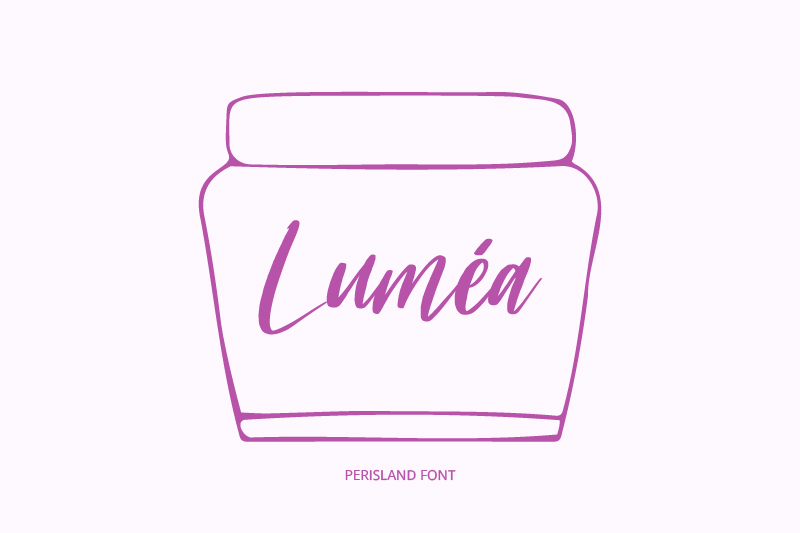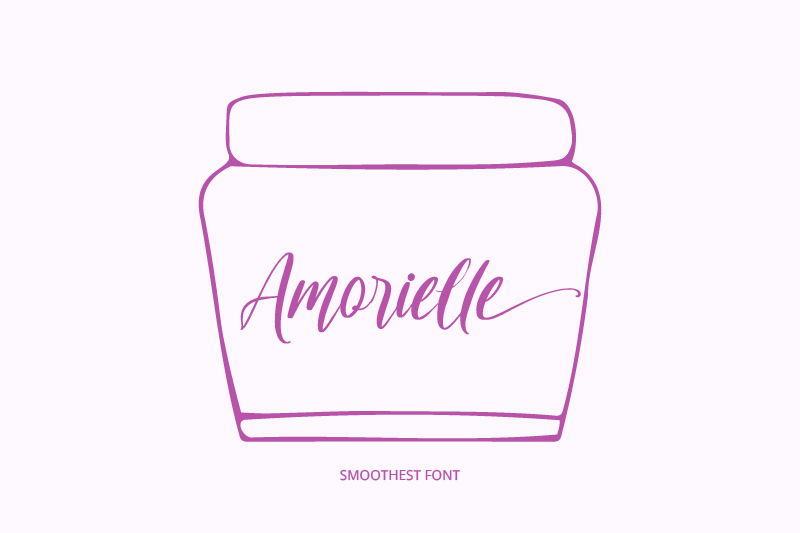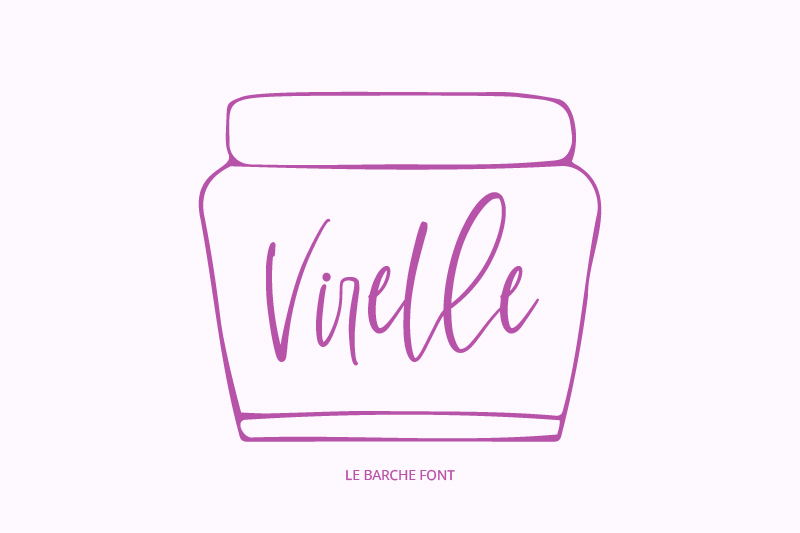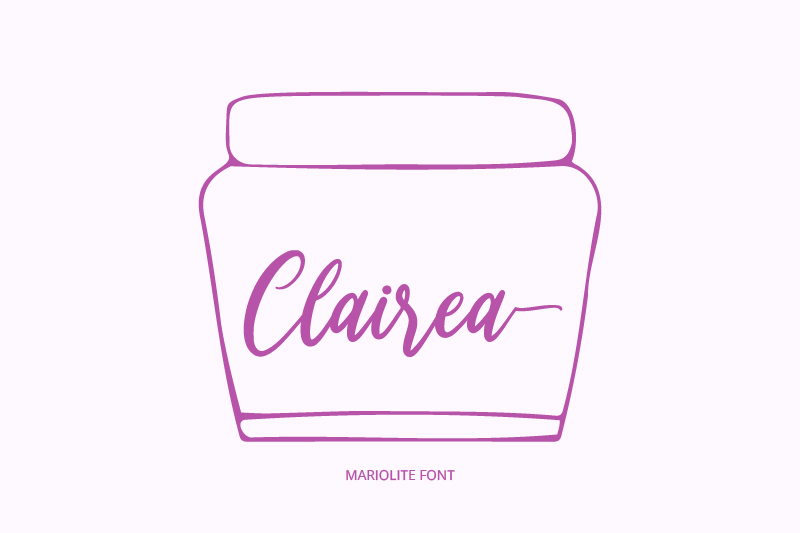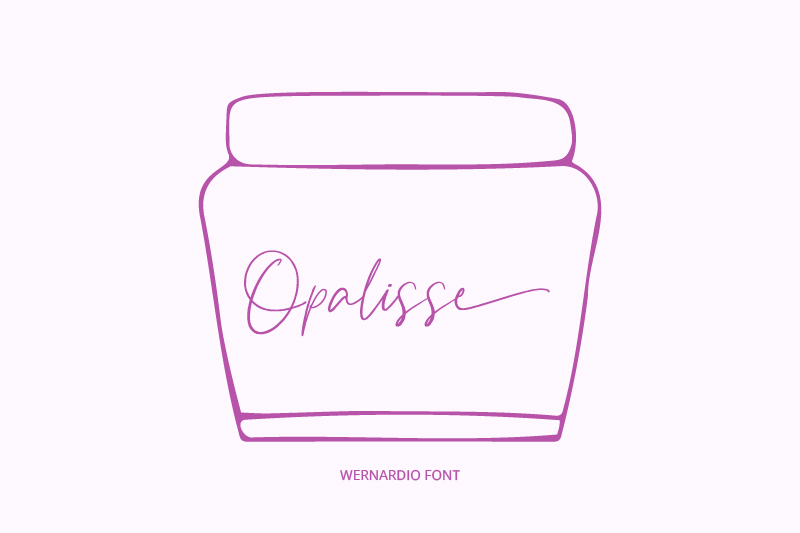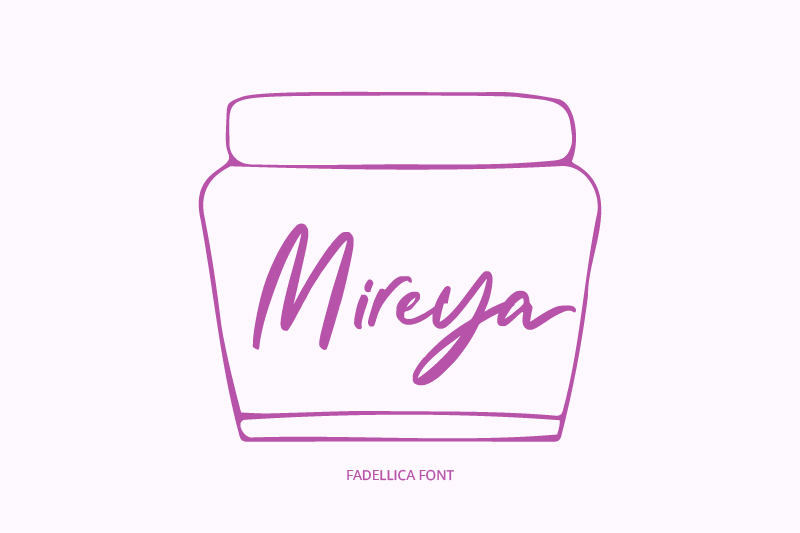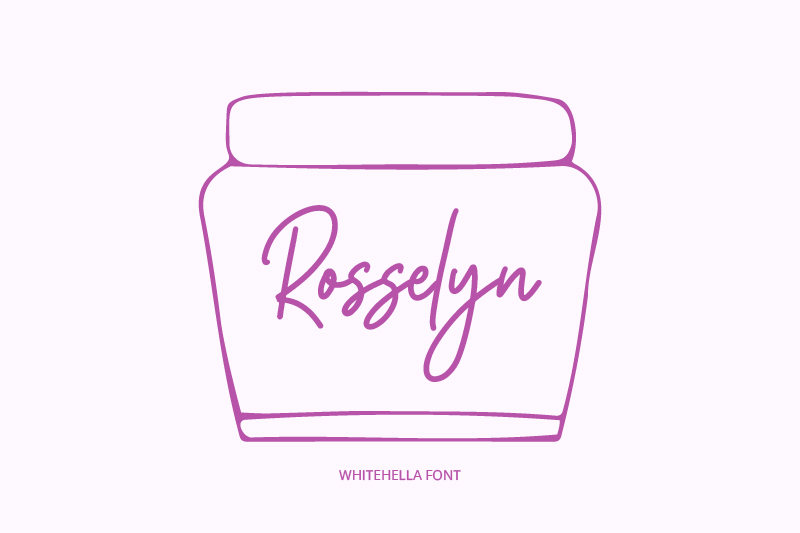
When first seeing a cosmetic product, the first thing that immediately catches your eye is usually the packaging design. It’s not just the color but also the typography that creates a feminine, elegant, and convincing impression from the first glance. Even before you try the product, choosing the right font can immediately convey a brand’s character, from subtle and luxurious to playful.
It’s no wonder that many beauty brands are looking for fonts for cosmetic packaging that can convey a girly and elegant impression without losing their professional touch. This article will discuss the best font recommendations for cosmetic packaging, from graceful and feminine script styles to modern and sweet display fonts.
Feminine fonts have a distinctive visual character of soft, flowing lines, subtle curves, and elegant details that create a sweet, romantic, and graceful impression. This character is relevant in cosmetic design because it can build an emotional connection with the audience.
The appropriate use of feminine fonts can attract the attention of the female target market, convey a premium and trustworthy impression, and strengthen the identity of a skincare or makeup brand. By choosing the right fonts for cosmetic packaging, your packaging design will not only look classier but also be more memorable and recognizable to consumers.
In the beauty industry, typography selection plays a crucial role in creating a first impression that represents the quality and character of a product. Here’s a list of fonts suitable for cosmetic, skincare, and beauty brand packaging designs:
In the context of fonts for cosmetic packaging, Perisland is a feminine script font with bold, subtly flowing, and neat stroke detail letterforms. This look exudes a soft, elegant, and romantic impression with a visual style that presents exclusive and personal nuance, strengthening the cosmetic brand’s identity.
Perisland’s strength lies in its ability to build visual emotion and premium impressions without looking stiff. This characteristic makes this font ideal for girly, soft, luxurious, and feminine packaging designs with a strong visual appeal.
Known for its feminine and elegant style, Madisson is a modern signature font that has subtle and flowing letterforms, presenting an elegant and romantic nuance. Its visual feel is modern and personal, allowing it to strengthen beauty brand identity.
Moreover, Madisson is perfect for beauty brand logos, product names, and packaging labels. This font supports promotional visuals, specifically in skincare, makeup, and premium perfume packaging that looks professional, classy, and exclusive.
Palmergia is one of the best choices in the list of fonts for cosmetic packaging that emphasizes a feminine, soft, and elegant impression. This handwritten script font has a natural stroke flow that feels personal and artistic. Moreover, the thin texture line detail presents a classy modern touch without compromising the soft and exclusive nuance.
Palmergia’s contemporary handwriting style is also ideal for cosmetic packaging, including lipstick, skincare products, makeup, and perfume. Those products use this font to look aesthetic, professional, and memorable for the audience.
Presenting a feminine character with a dynamic stroke and subtle curve, Alderlite comes as a strong and attractive typography. The curved letter tip’s detail gives a graceful and luxurious touch, making it ideal for cosmetic, skincare, body care, and modern lifestyle brands that want to look stylish and classy.
As a script font, Alderlite has bold yet subtly flowing letterforms, creating an elegant, sweet, and confident impression. Moreover, its uniqueness is further enhanced by the bold swashes on the initial letters, the subtle ligatures between letters, and the balanced thick-thin contrast, making it stand out without compromising its refined feel.
Exuding a soft and classy feminine persona, Cladessia presents a subtle, graceful, and proportional thin script font. Every character flows neatly with a smooth curve, creating a light, elegant, and calming impression without an excessive accent. The visual feels modern and clean, making it an ideal choice for logo branding and beauty and skincare product packaging that wants to show a refined and professional feminine look.
Rosaline looks modern and graceful through its tall, firmly curved initials, combined with slender, flowing, and feminine script strokes. Its romantic touch is captivating, conveying a light yet expressive elegance. With its balanced appearance, Rosaline looks charming and modern, making it one of the ideal fonts for cosmetic packaging that conveys a sweet, warm, and classy impression.
Dare to look expressive with a dynamic handwriting touch; Jack History presents a stylish, relaxed script style. The letter’s flow is naturally connected and flowing, creating a friendly, confident, and modern impression.
Choosing the right fonts for cosmetic packaging is crucial to creating an attractive, elegant, and characterful beauty and skincare product branding. The proper font can strengthen product branding, increase visual appeal, and make them stand out both on shelves and in online stores.
If you are aiming for a feminine, beautiful, and professional design for your cosmetic packaging, use the font collection above for your own creative endeavors.